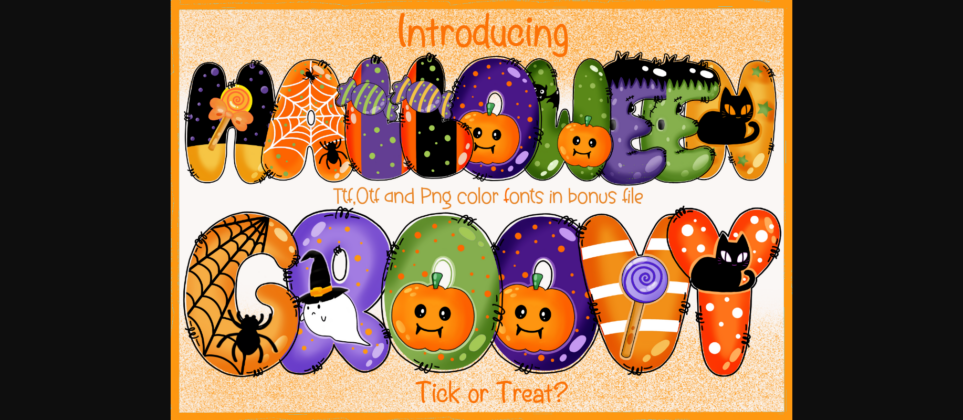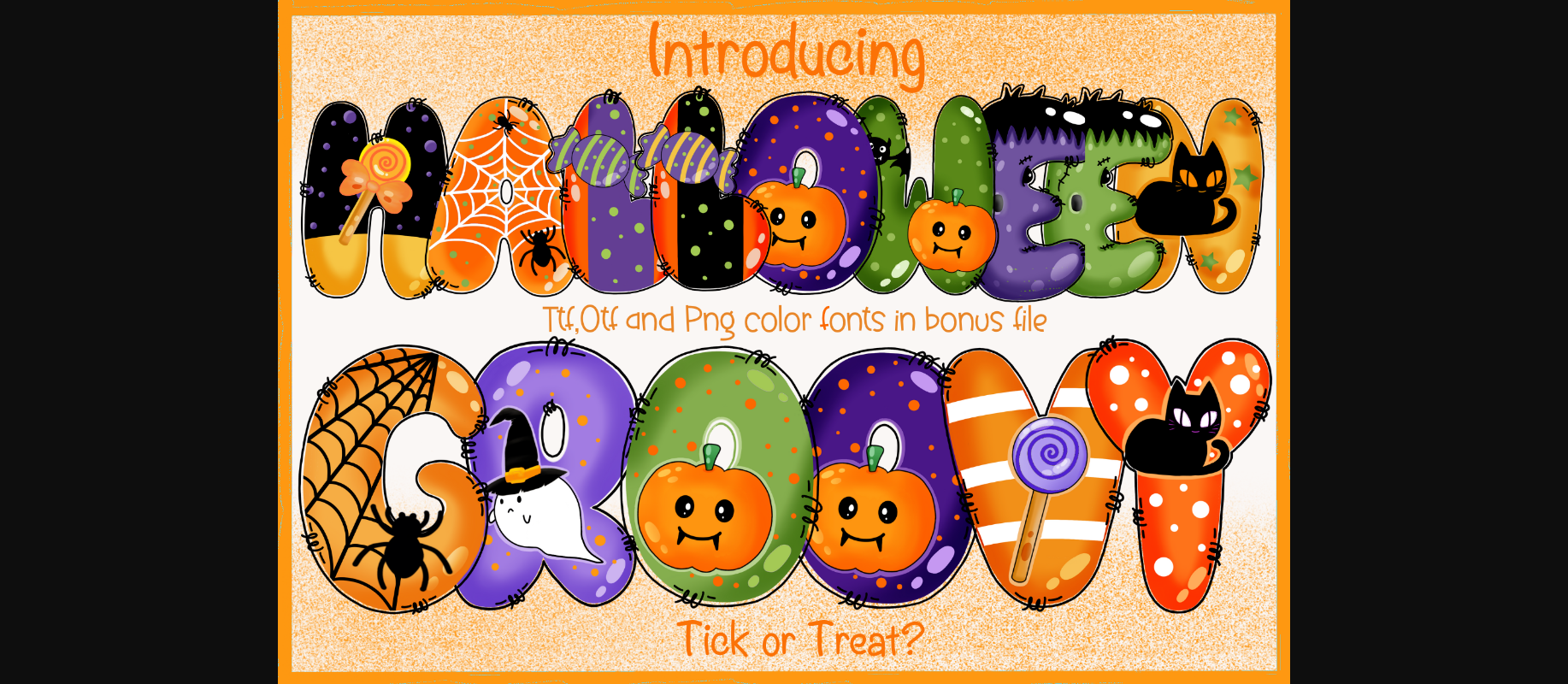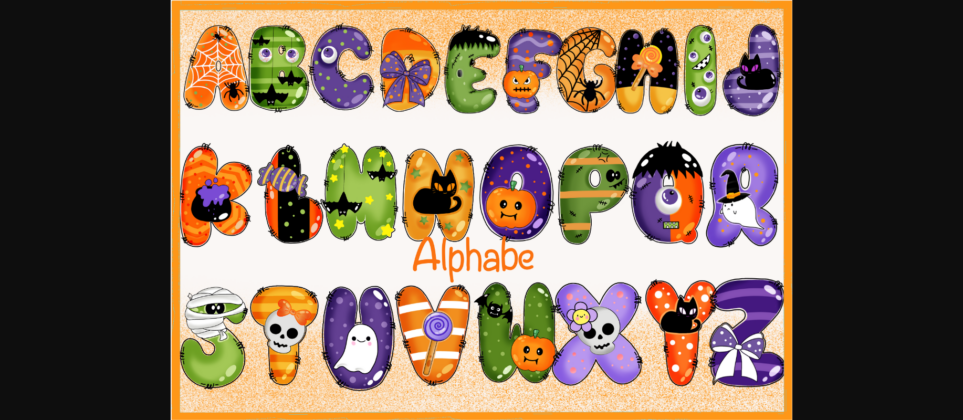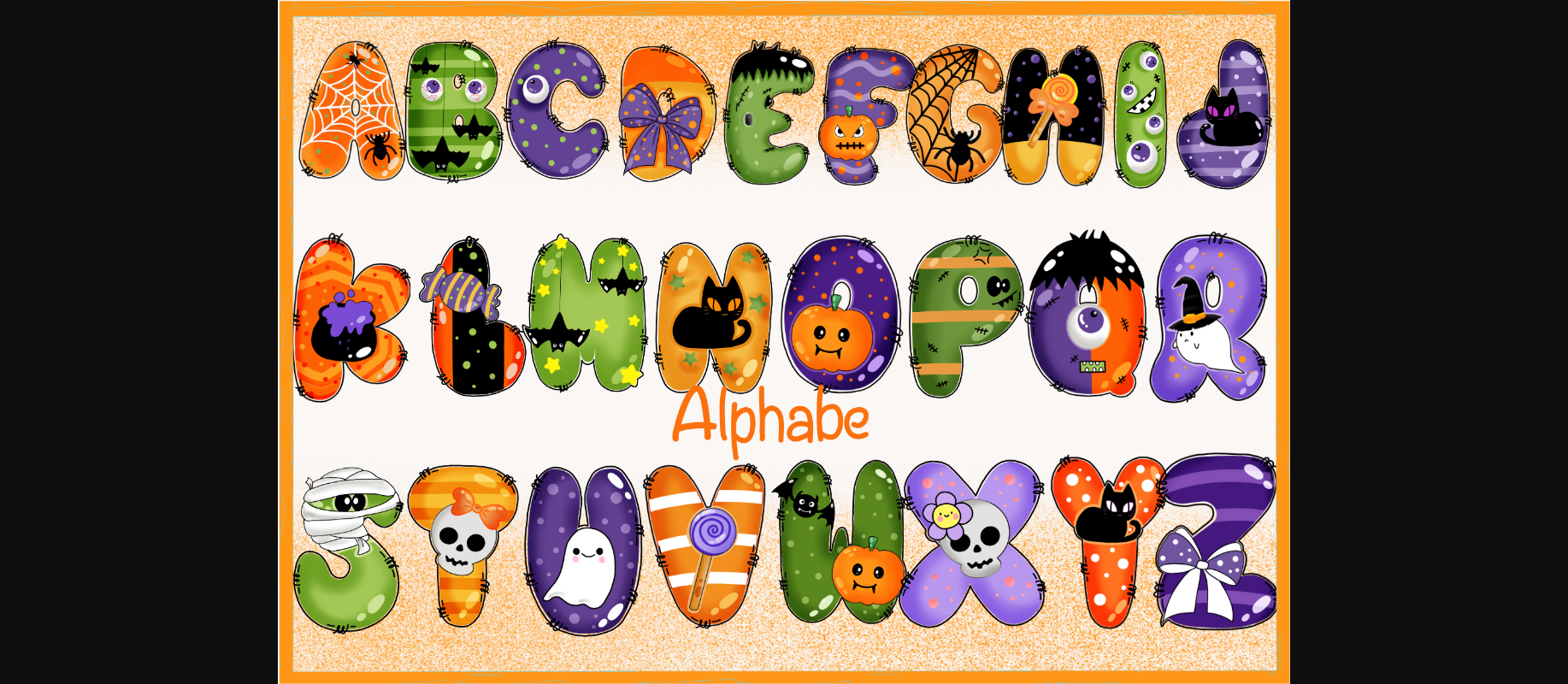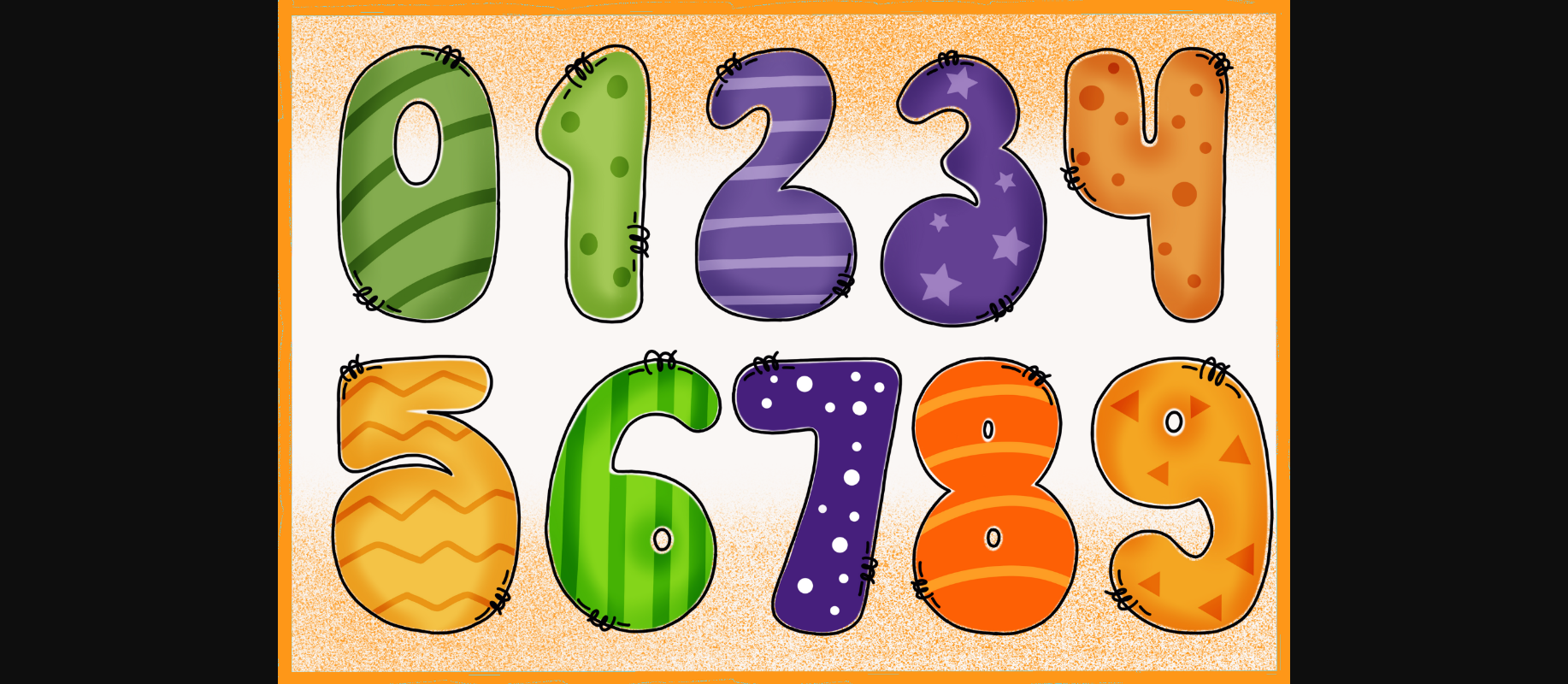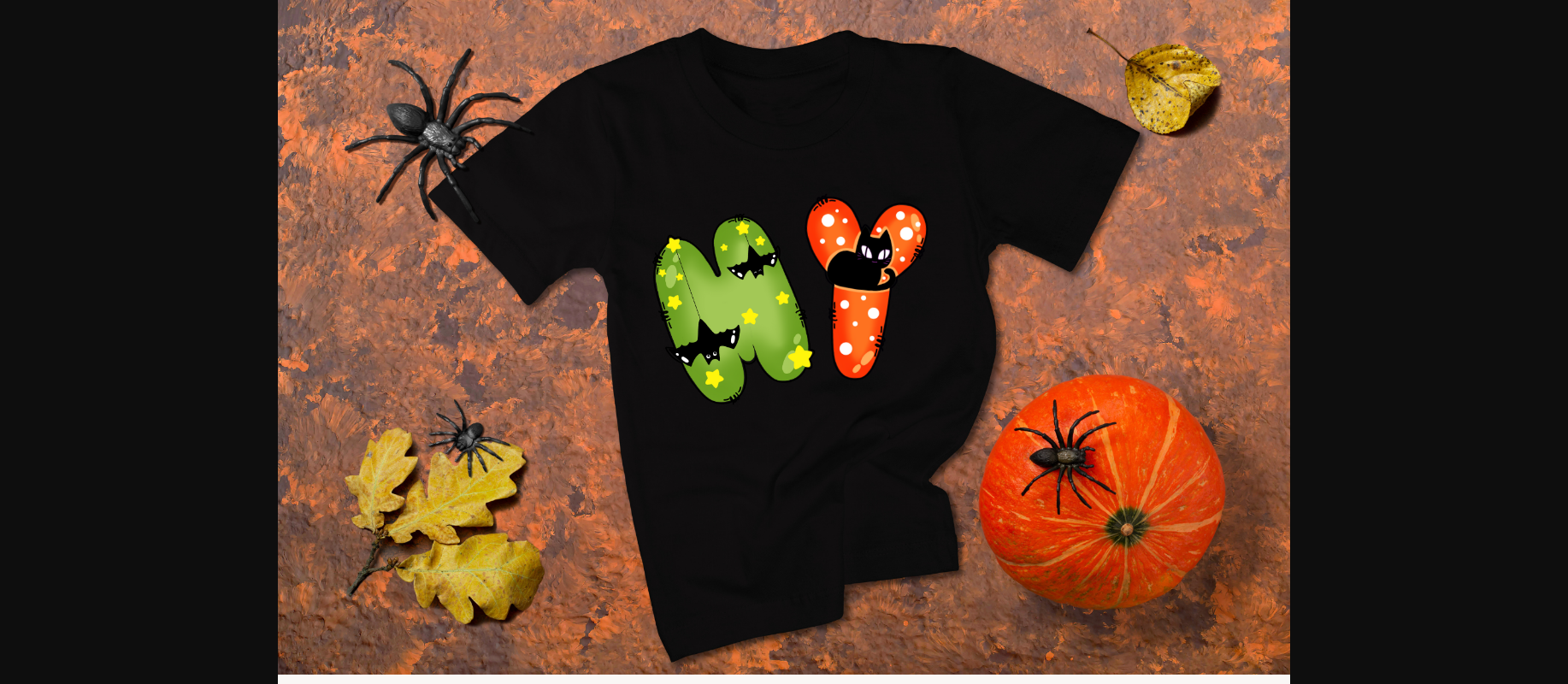
Halloween Groovy Font
About Halloween Groovy Font
Now this is a fun Halloween font. Halloween Groovy is exactly what you would expect to see on a poster or merchandise designed for Halloween. Invitations, postcards, posters, and headings for a Halloween event; this font can be used in every setting.